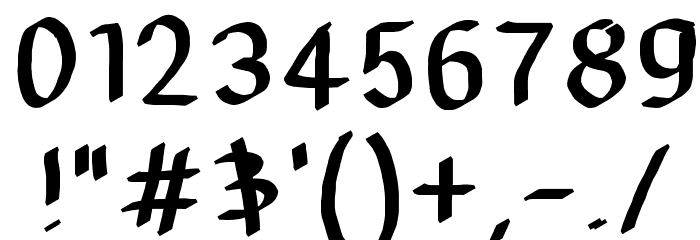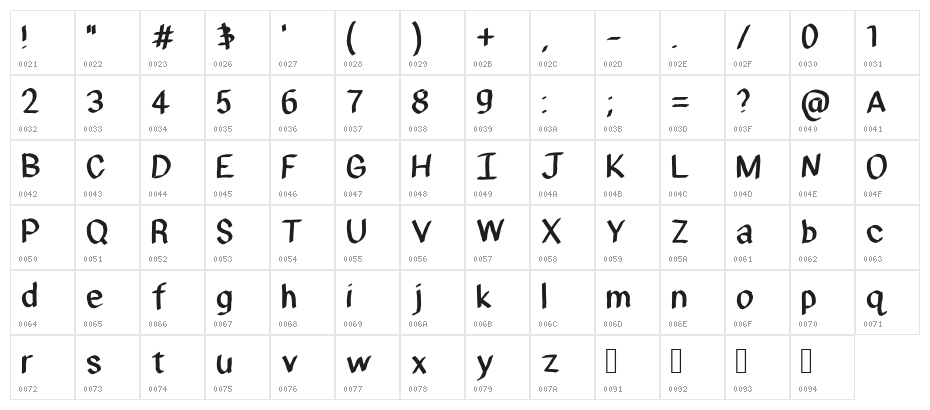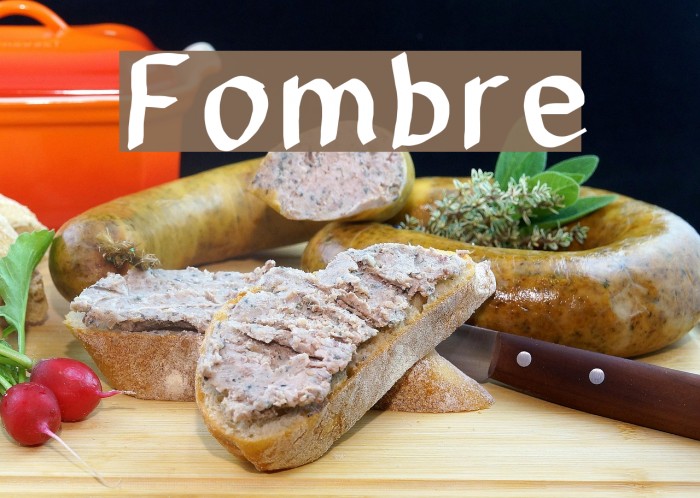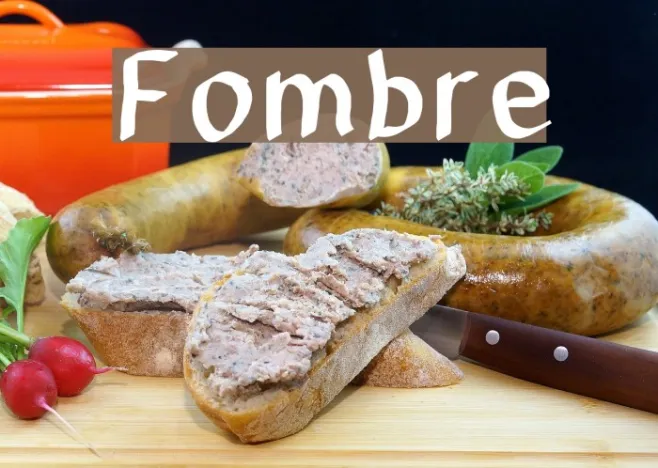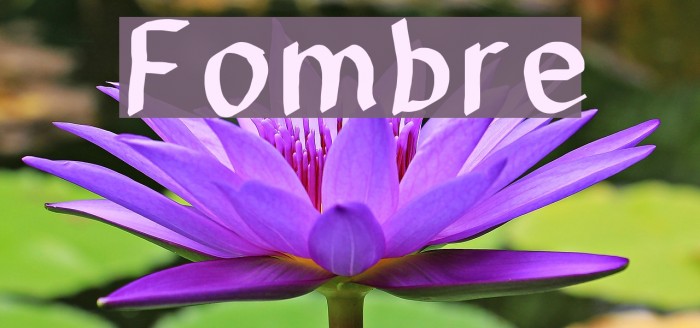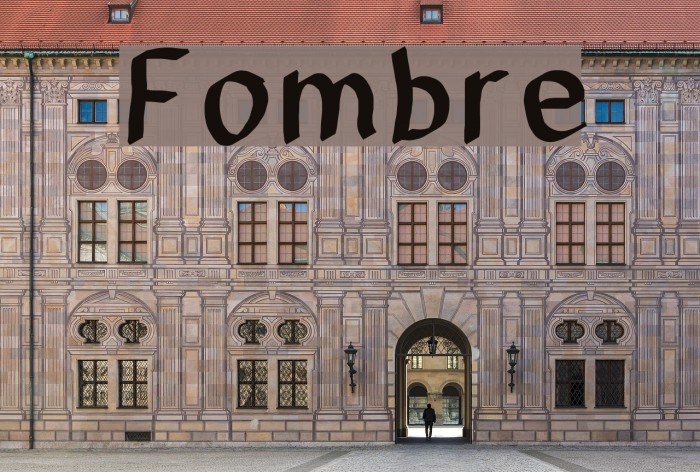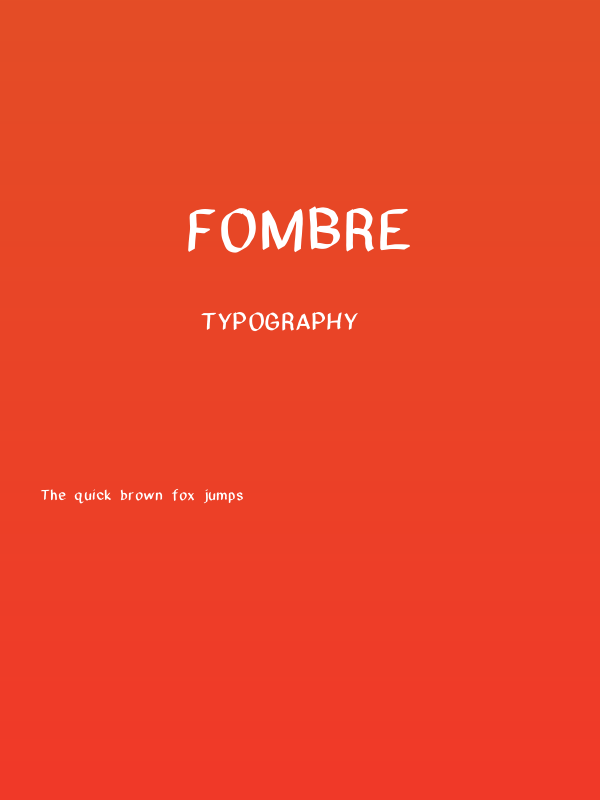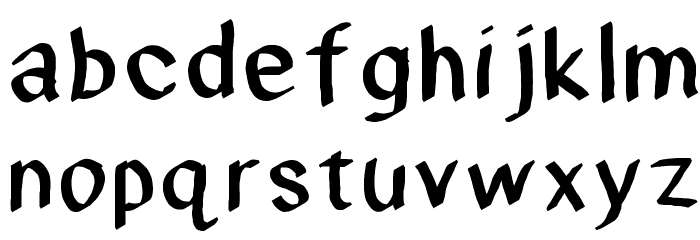
Fombre Font
Fombre Description
This font features a playful and dynamic handwritten style with a slightly irregular baseline, giving it a lively and informal appearance. The characters are bold and have a brush-like texture, which adds a sense of movement and energy. The uppercase letters are slightly taller than the lowercase, maintaining a consistent width throughout. The numbers and special characters follow the same stylistic cues, ensuring uniformity across the font. This font's unique personality makes it suitable for creative and casual designs.
Overall StylePlayful
Proposed ProjectsIdeal for greeting cards, posters, children's books, and playful branding projects.